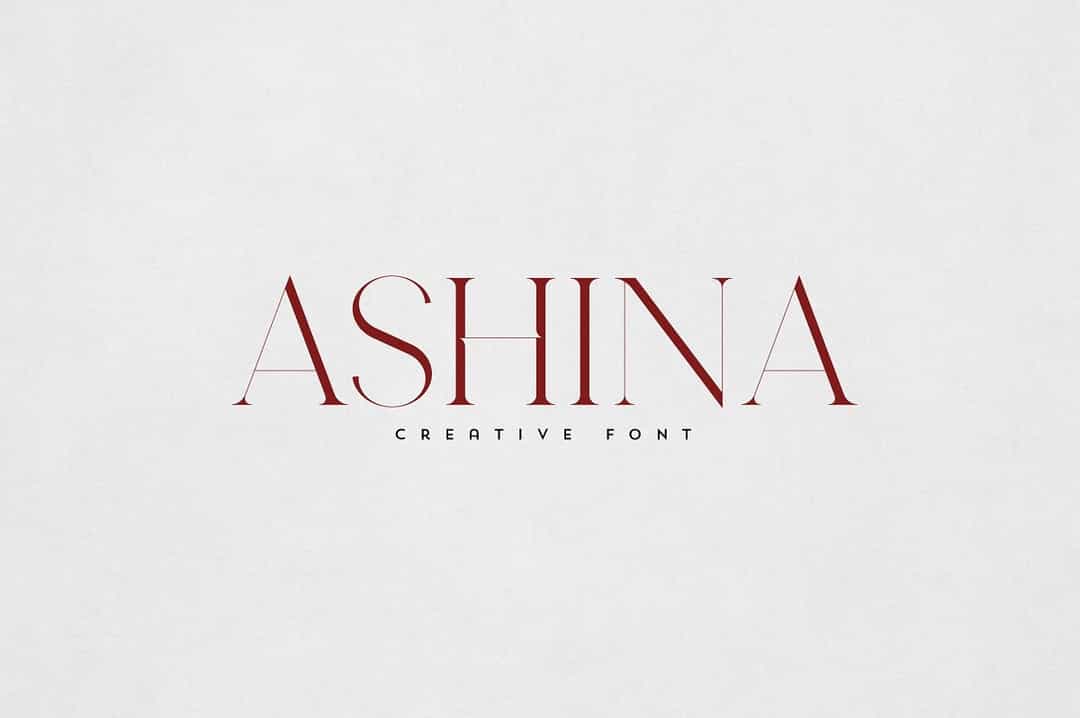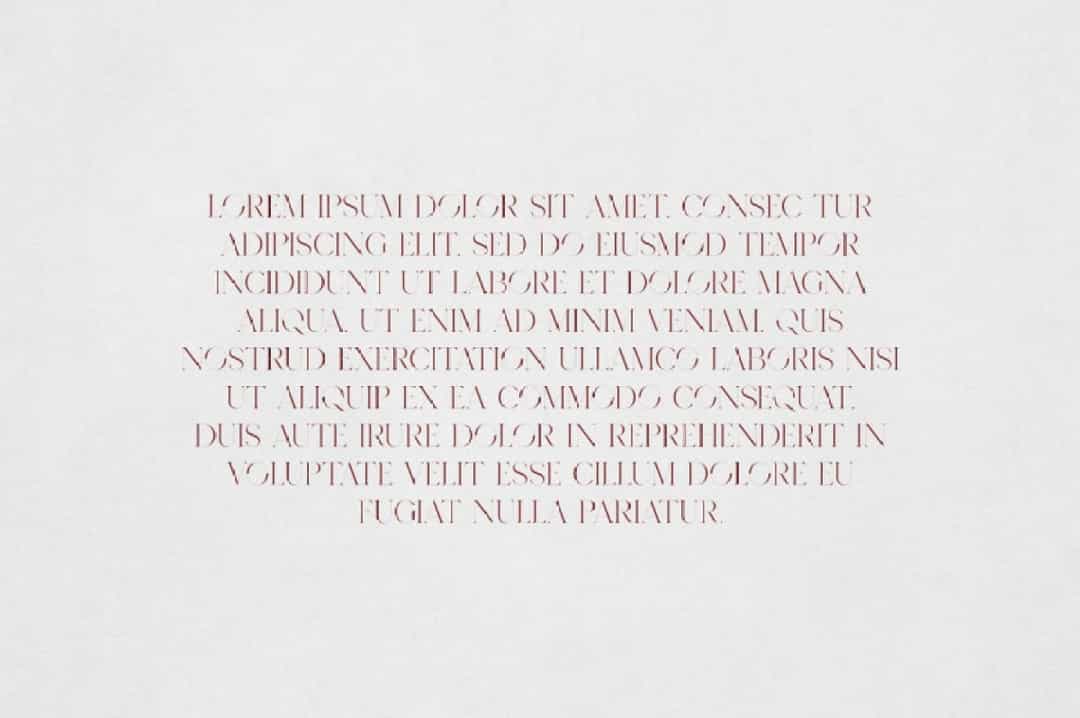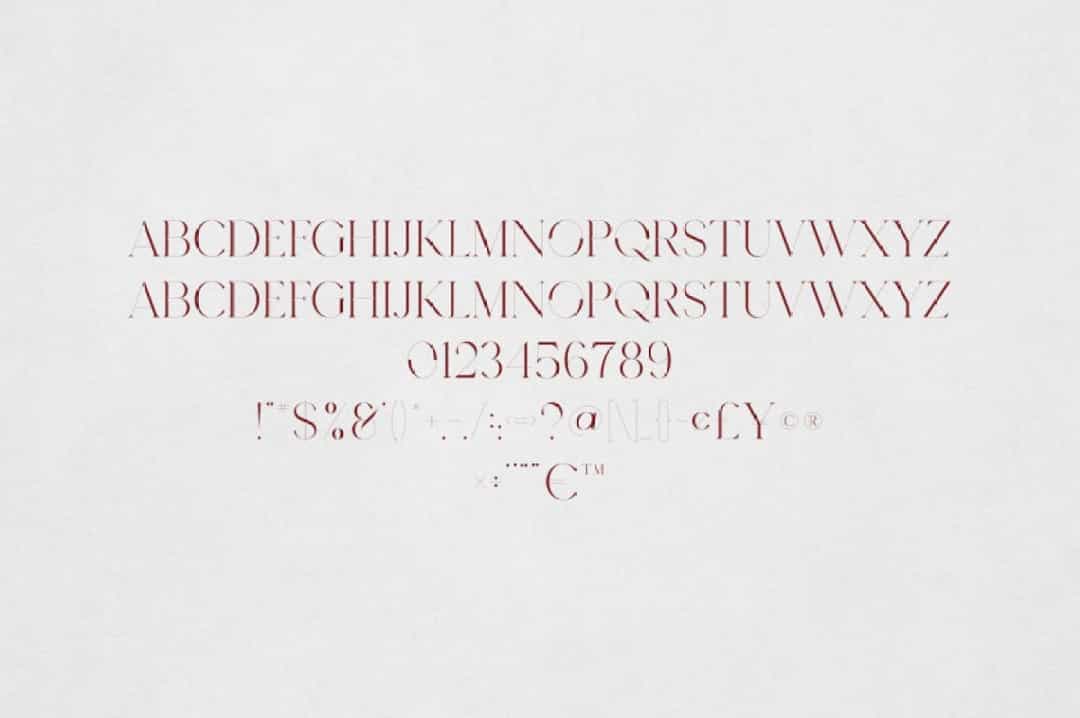
Ashina is an elegant and flexible serif typeface designed to bring your typography alive! Perfect for headlines, logos, branding or simple text – Ashina will take your typography from plain to stunning in no time! Perfect for home-ware projects, branding designs, packaging of products or magazine headers as well as providing an elegant text overlay for images!